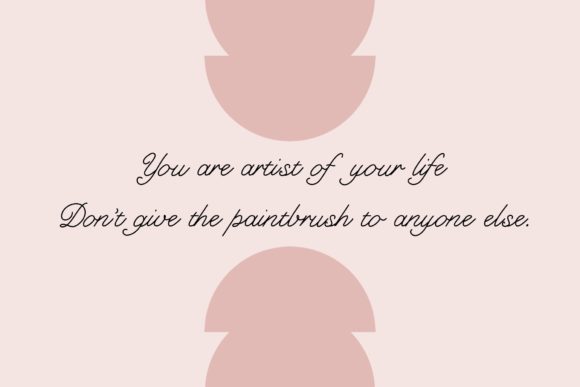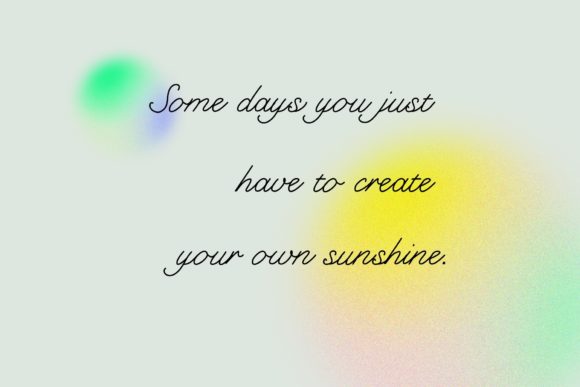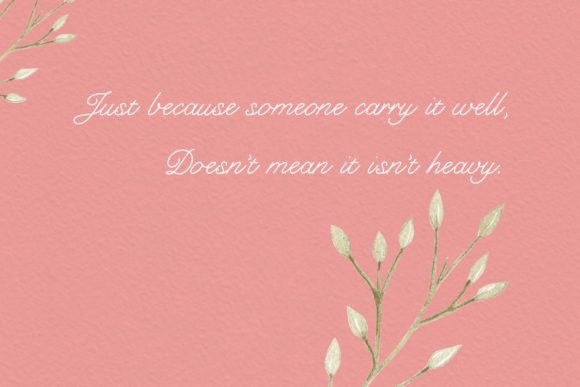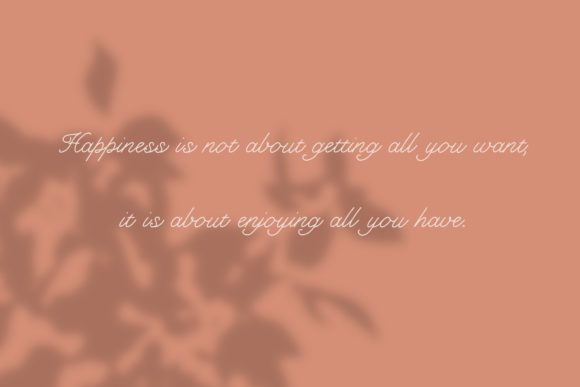
Melanie Font
About Melanie Font
Melanie is a delicate and vintage styled handwritten font. It will look lovely and fashionable to any creation that you wish to develop. Add it with confidence to your designs and you will fall in love with the final results.